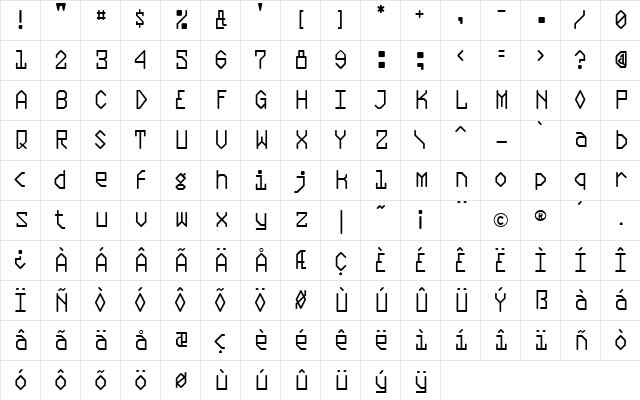
Plasmatic Regular
Design Context for Plasmatic Typeface
Plasmatic takes a measured approach to typography — its balanced proportions and neutral character make it a reliable workhorse for both digital and print work.